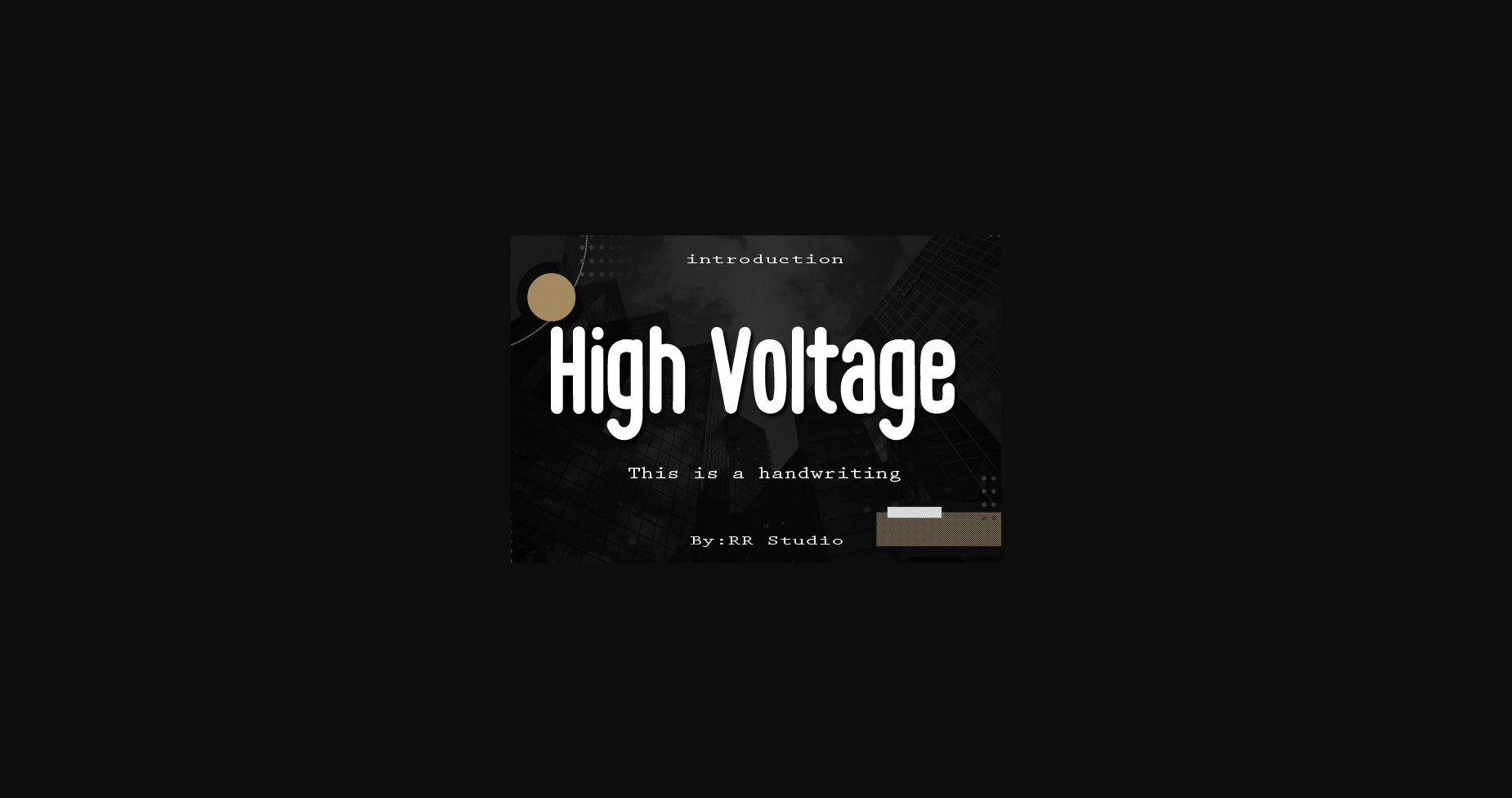
About High Voltage Font
High Voltage is a simple and neat lettered sans serif font. Its versatile vibe has a wide spectrum of applications ranging from greeting cards to headlines and is guaranteed to add a clean, natural feel to your next project.